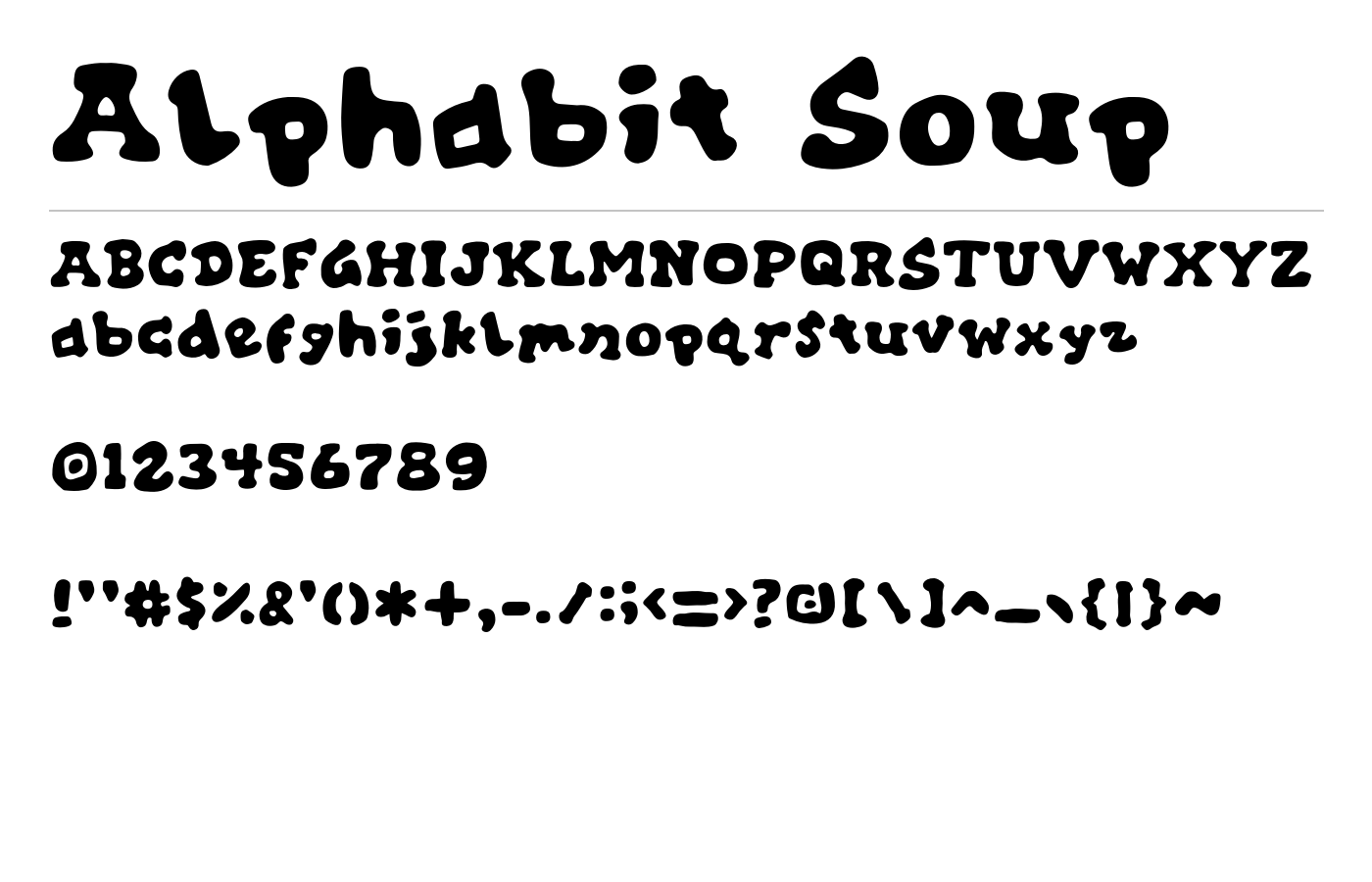
Alphabit Soup is a playful, chunky sans serif font with a hand-crafted, irregular style that conveys a fun and casual vibe. Its bold, rounded shapes and uneven letterforms give it a whimsical, approachable feel, making it ideal for children’s designs, informal branding, and playful headlines. This font works best where a quirky, friendly personality is desired, adding charm and uniqueness to logos, posters, and creative packaging.
Alphabit Soup Font
About Alphabit Soup Font
| Font family | Alphabit Soup Font |
| Designer | Ben Dunkle |